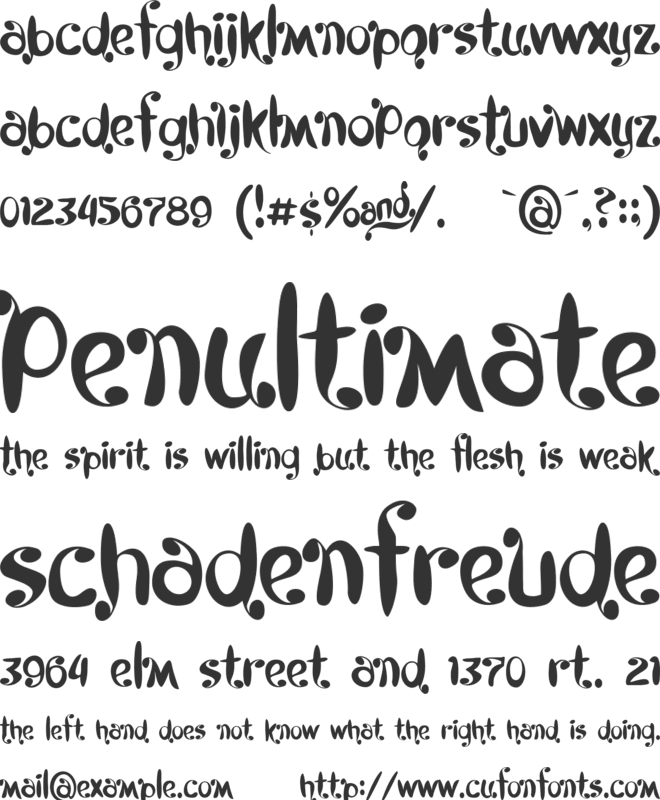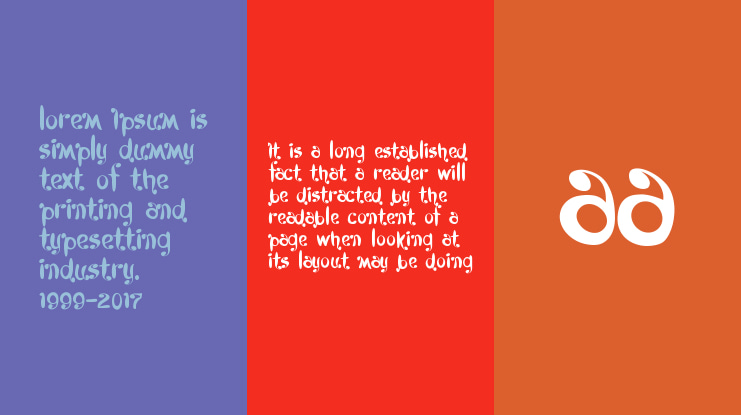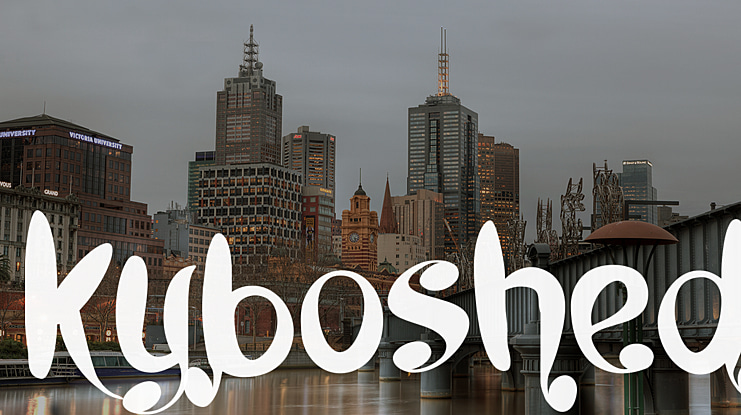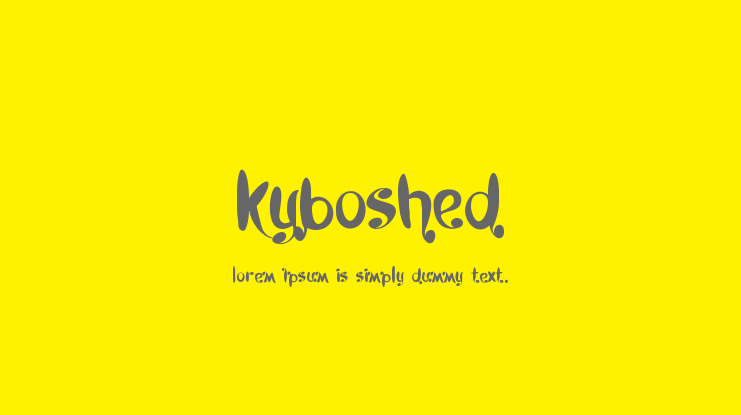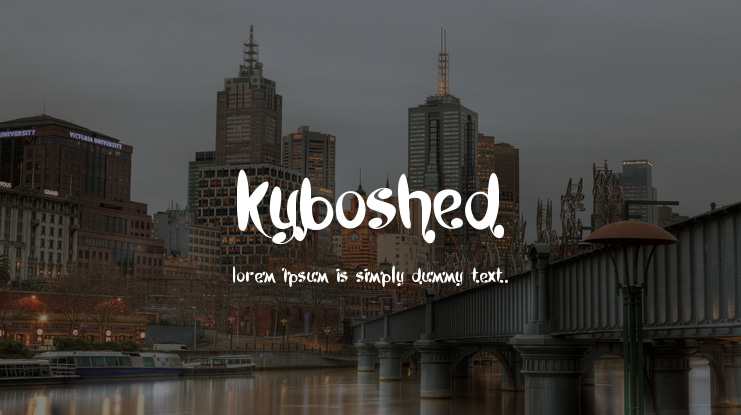
Kyboshed Font
A funny and curly font suitable for display purposes or logos. It has a ton of extra ligatures to stop the curls from colliding with the neighboring letters and give it a very organic look.